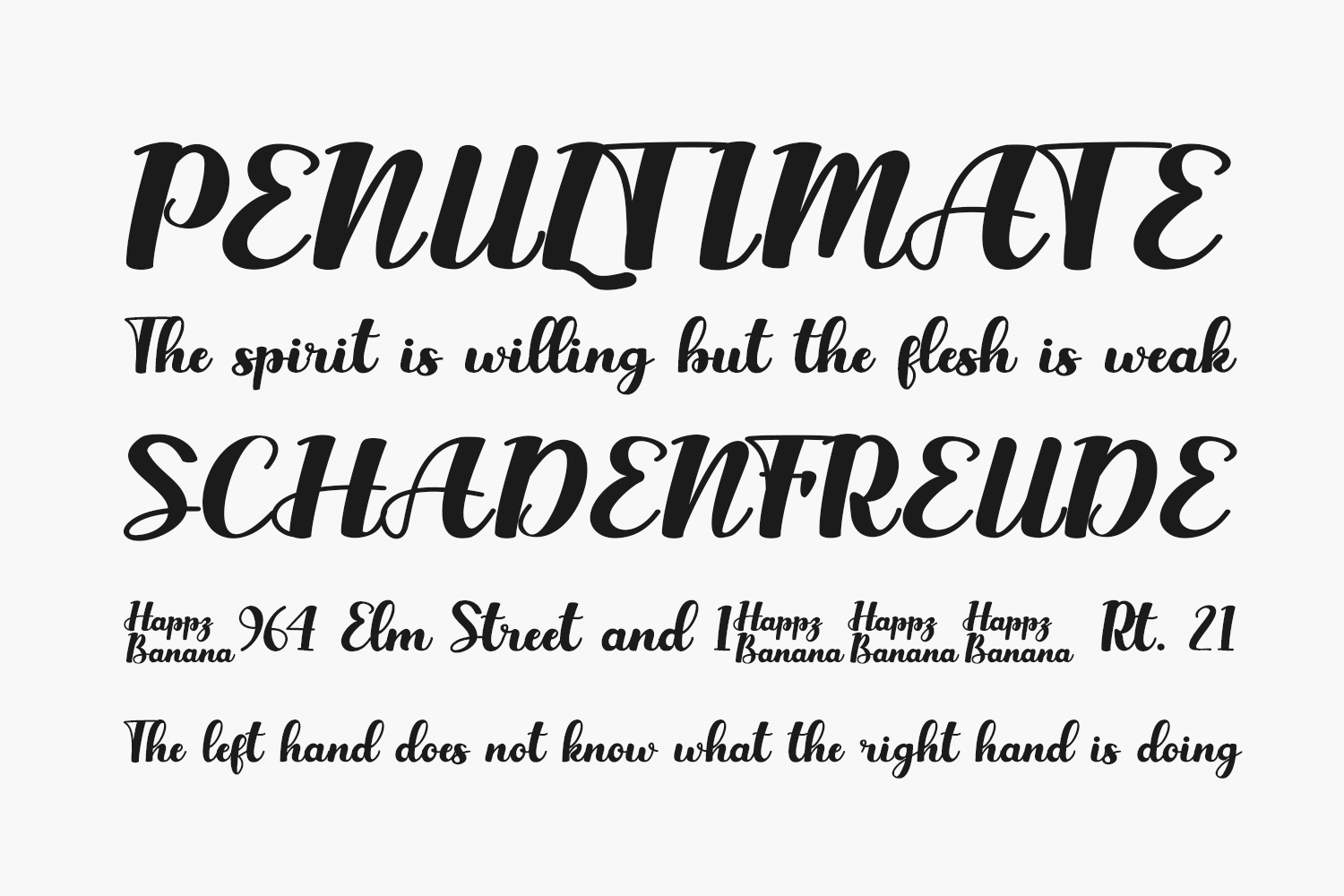
Happy Banana Free Font feels incredibly chic and trendy. It looks wonderful on wedding invitations, thank you cards, quotes, greeting cards, and every other design which needs a customized touch. Happy Banana Free Font was designed by Pidco Art and is free for personal use only. Please purchase the full version for commercial use.